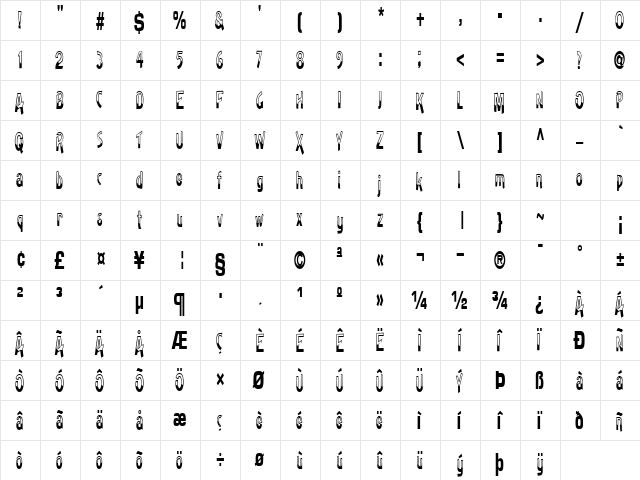
Badh Regular
Design Context for Badh Typeface
Badh offers clean, dependable letterforms without strong stylistic allegiance, making it a practical choice for designers who need flexibility.